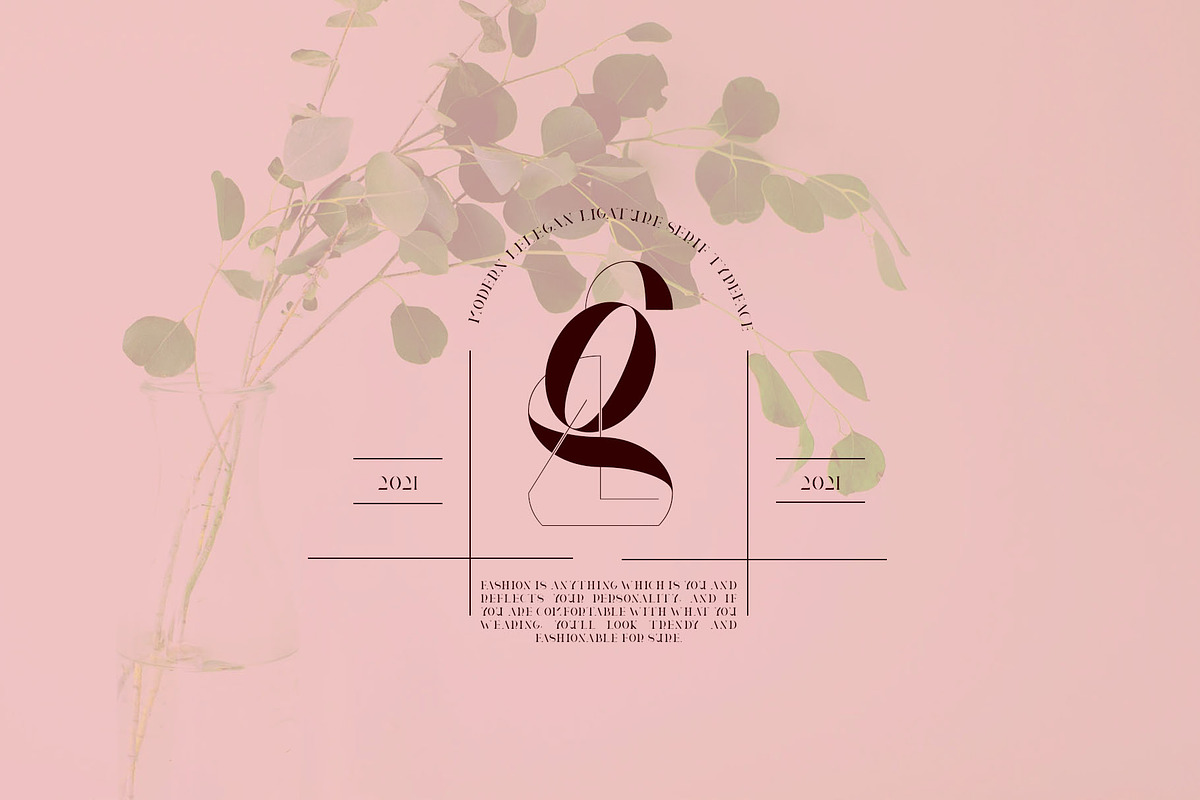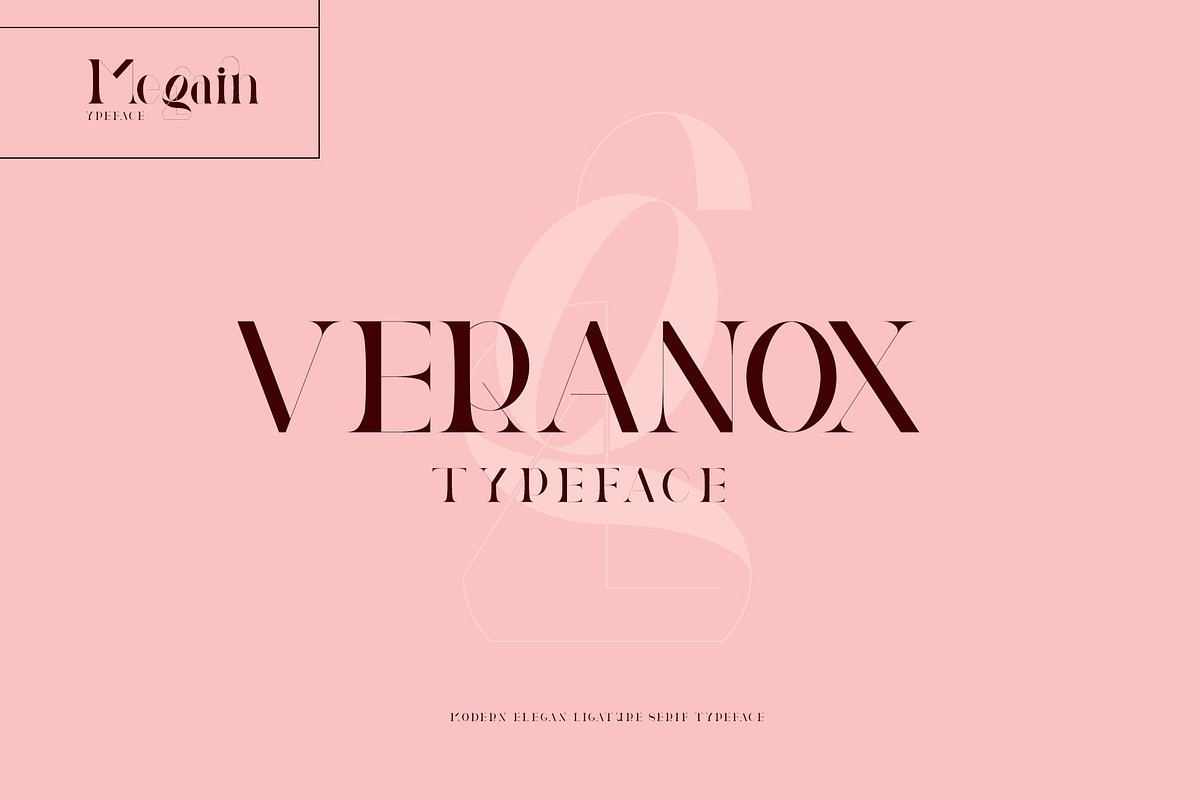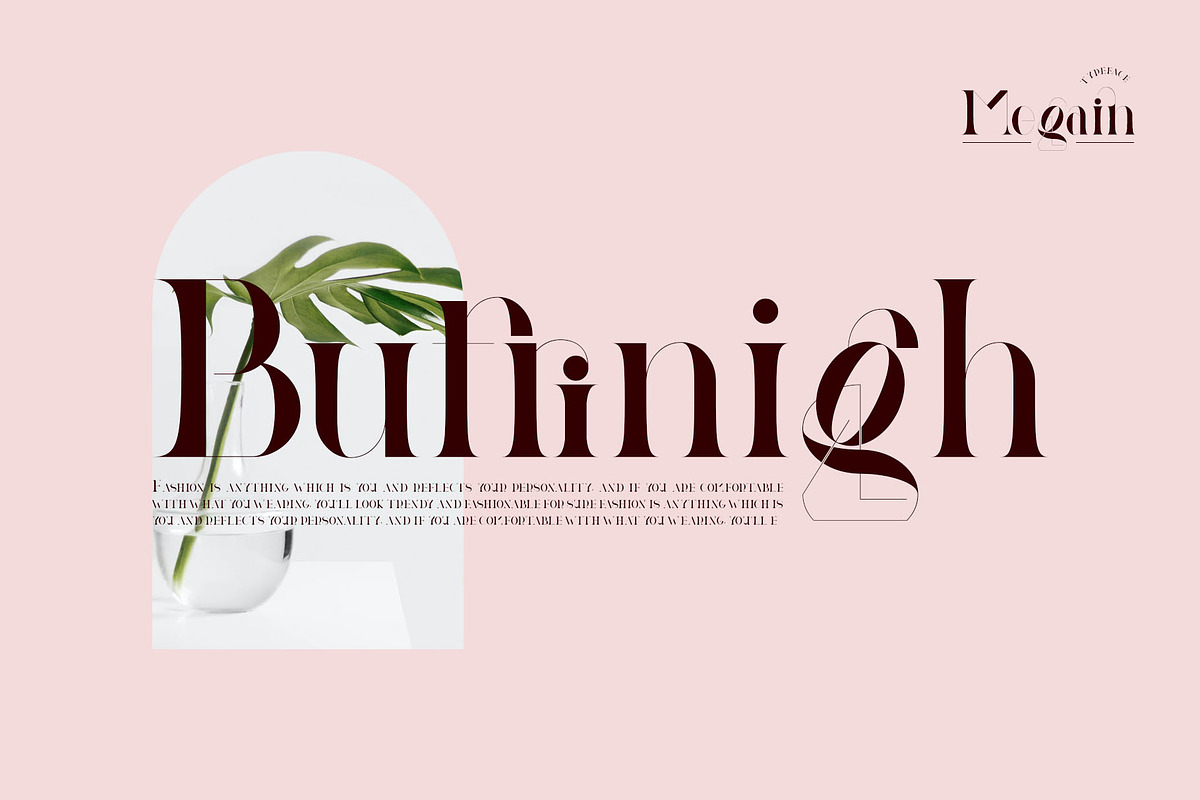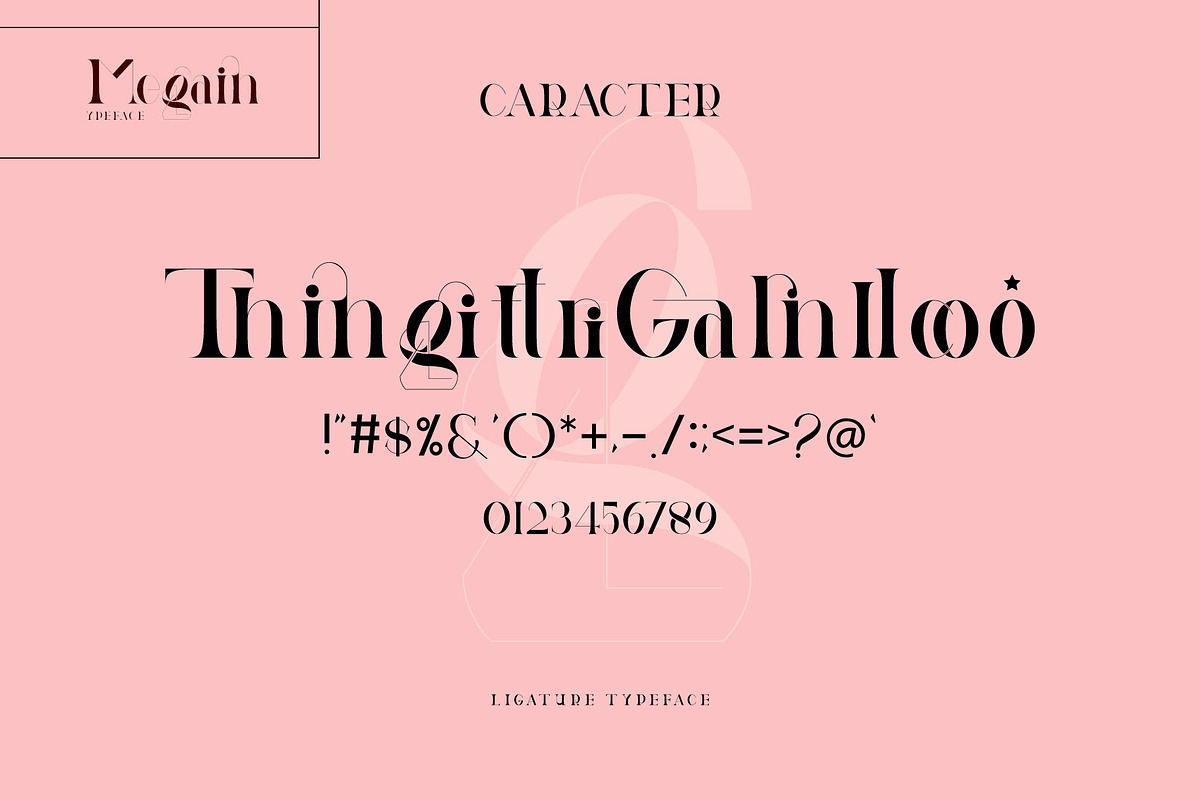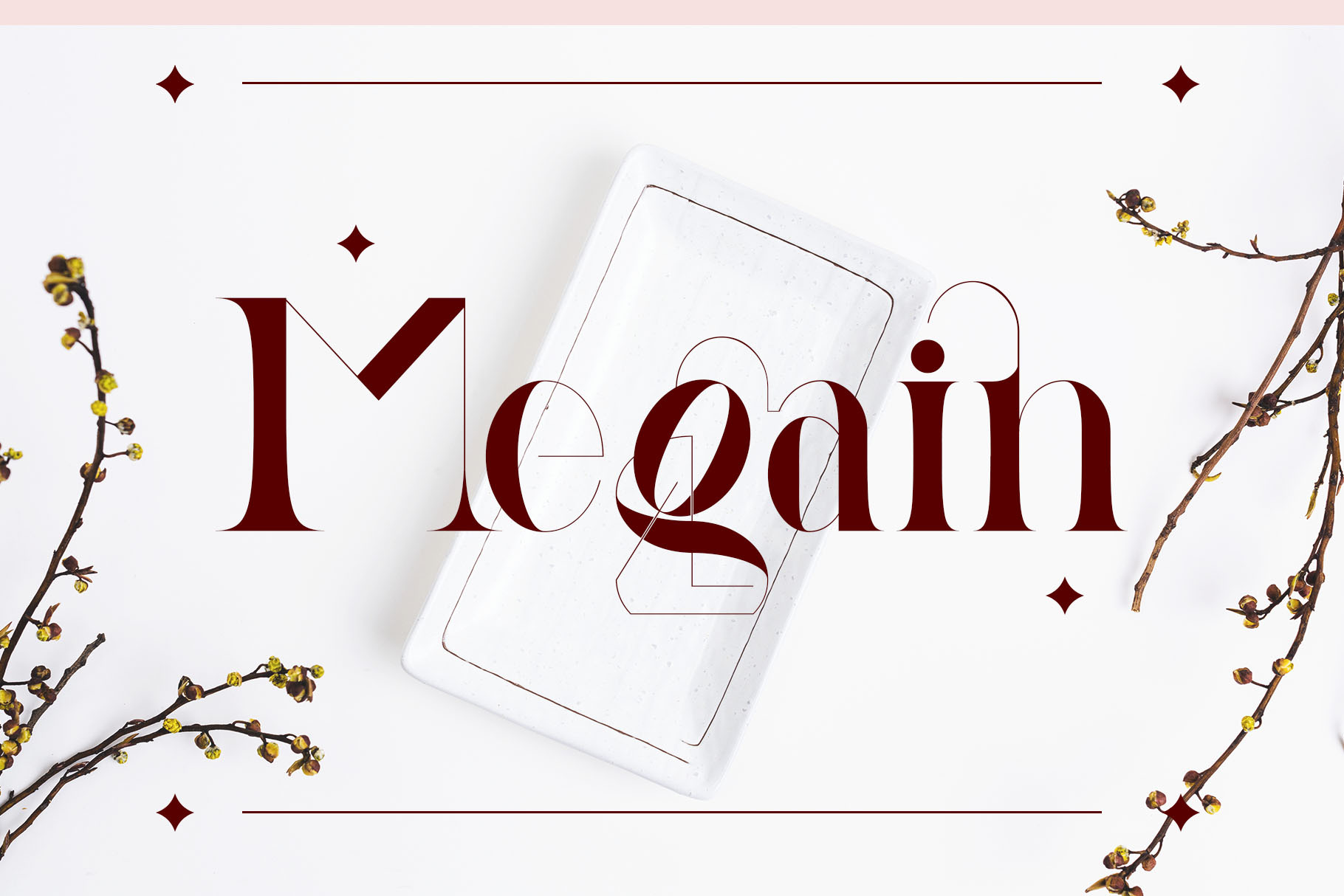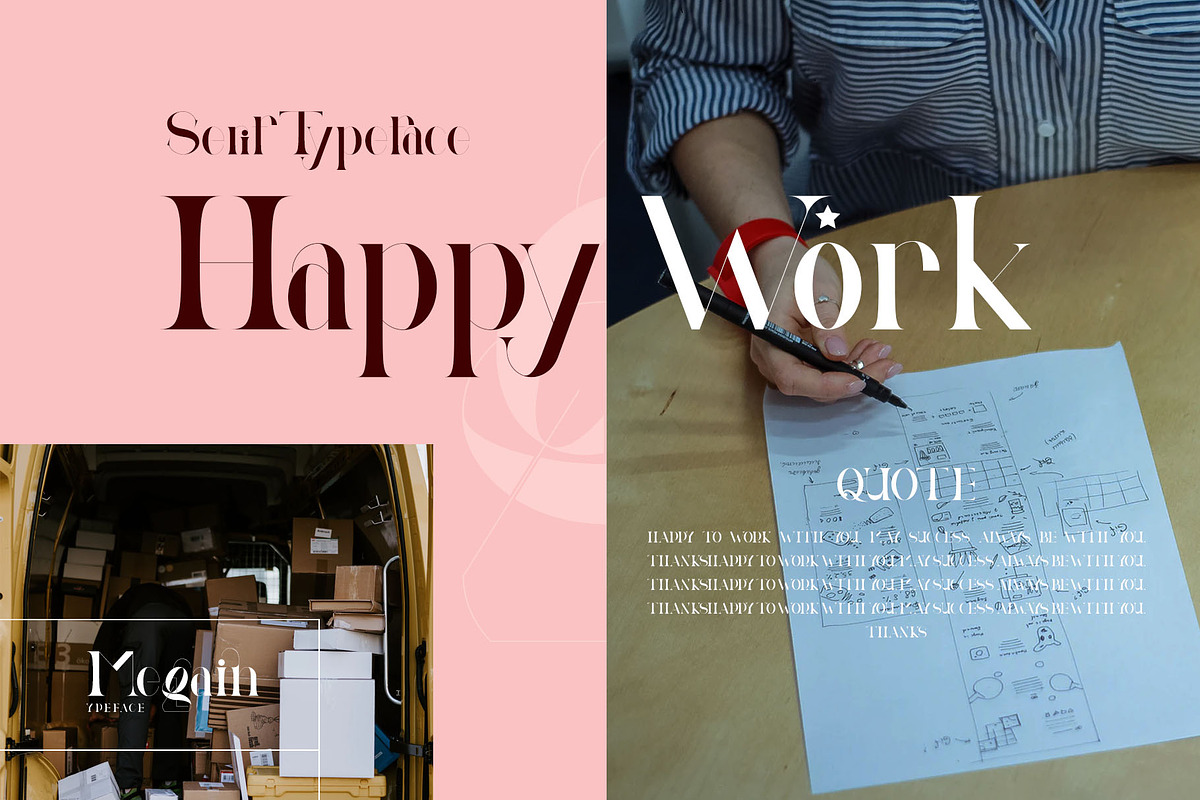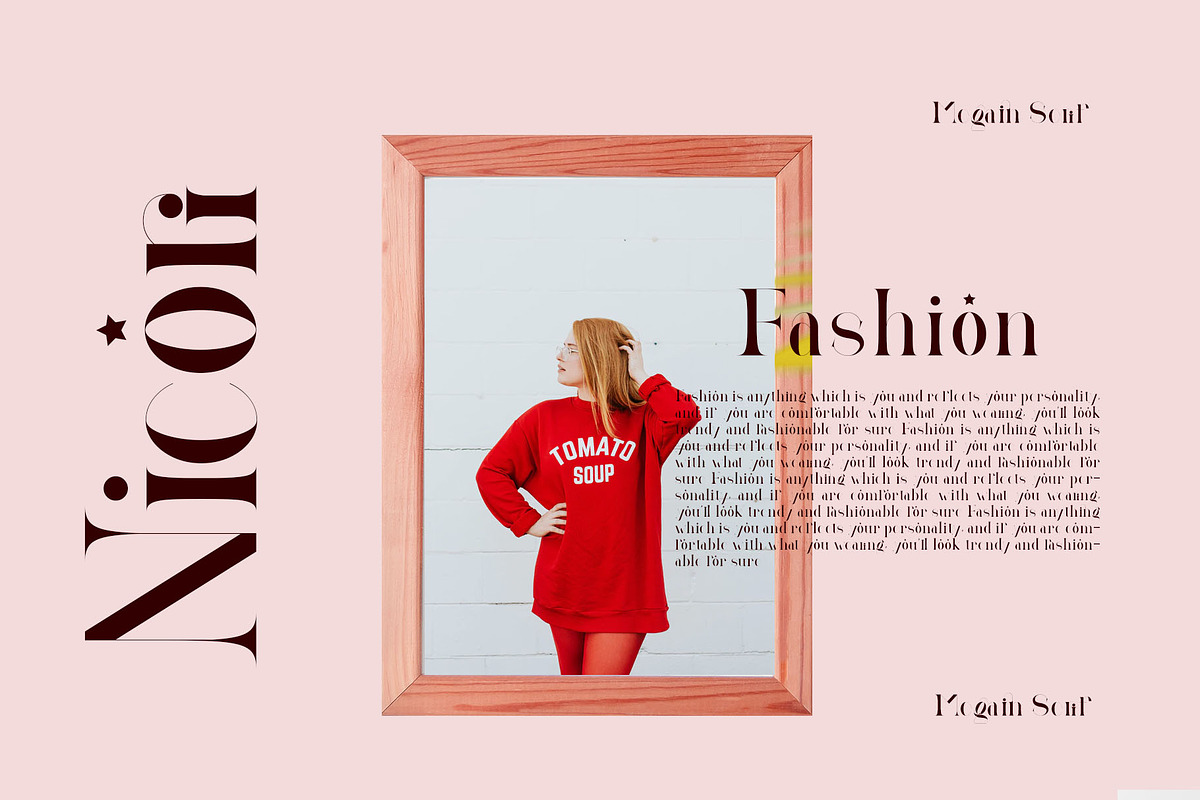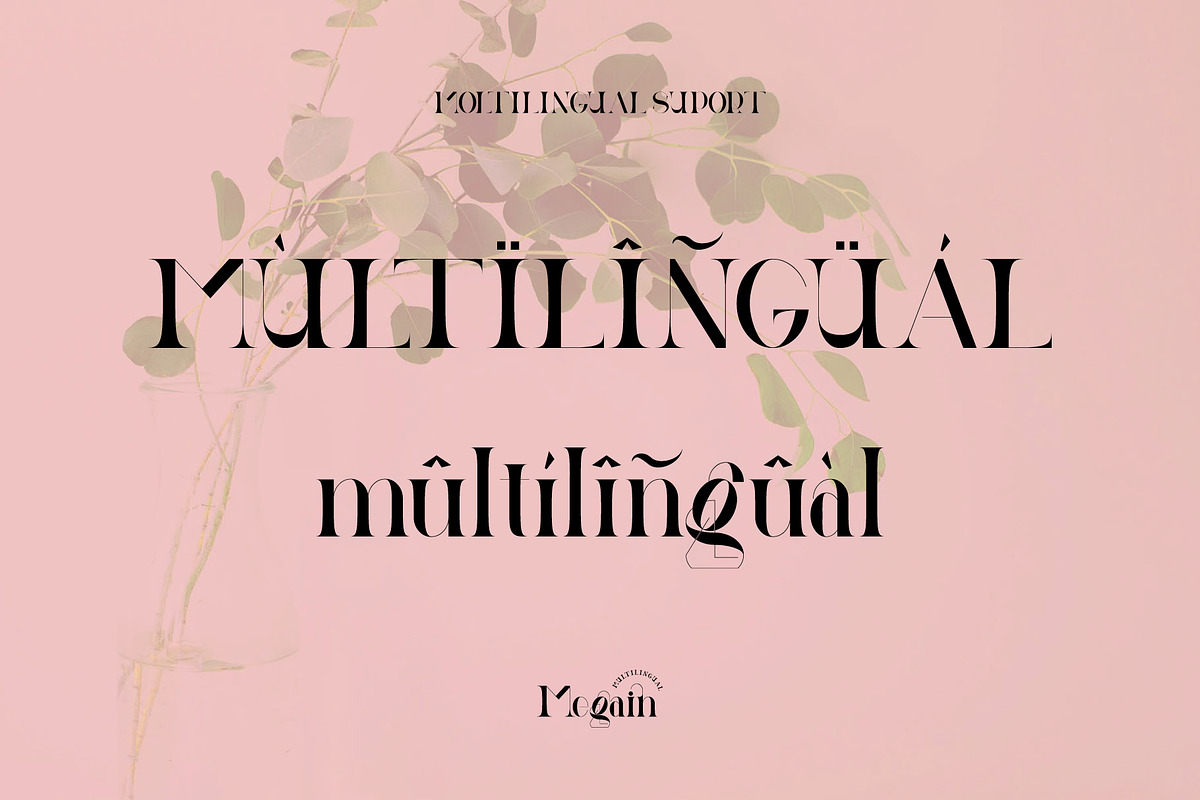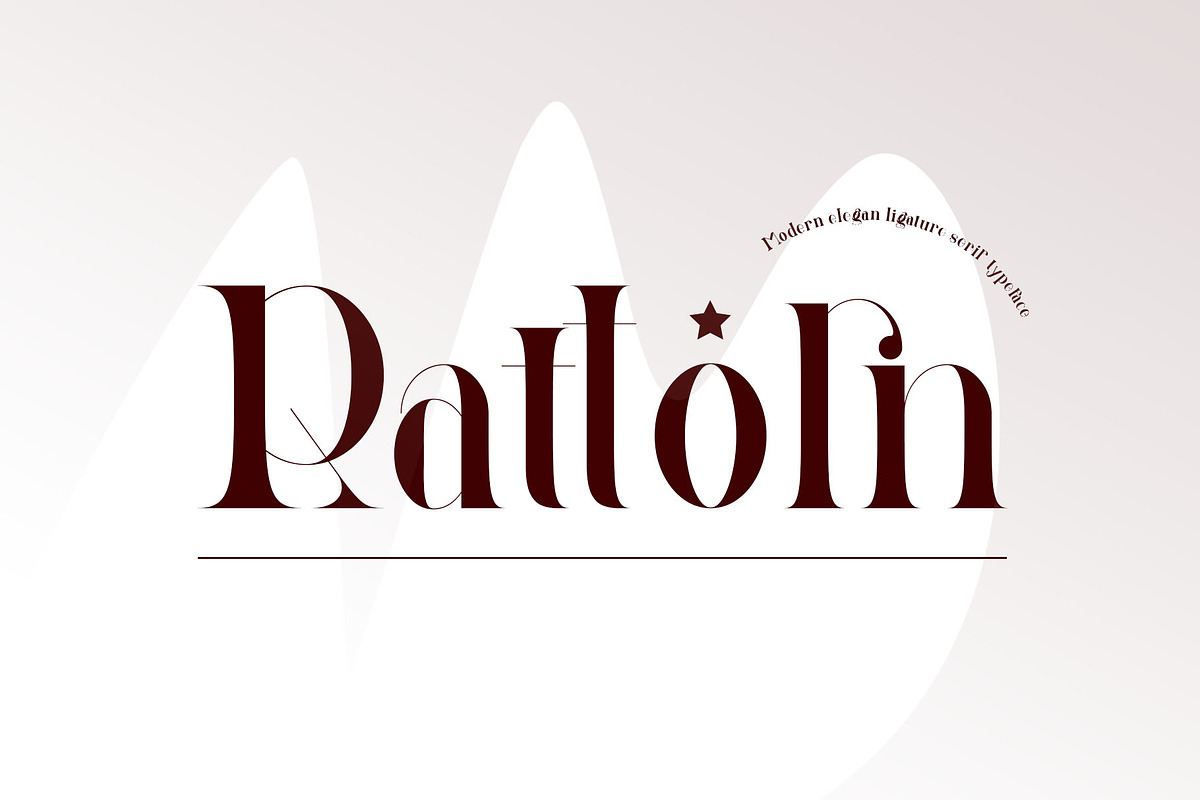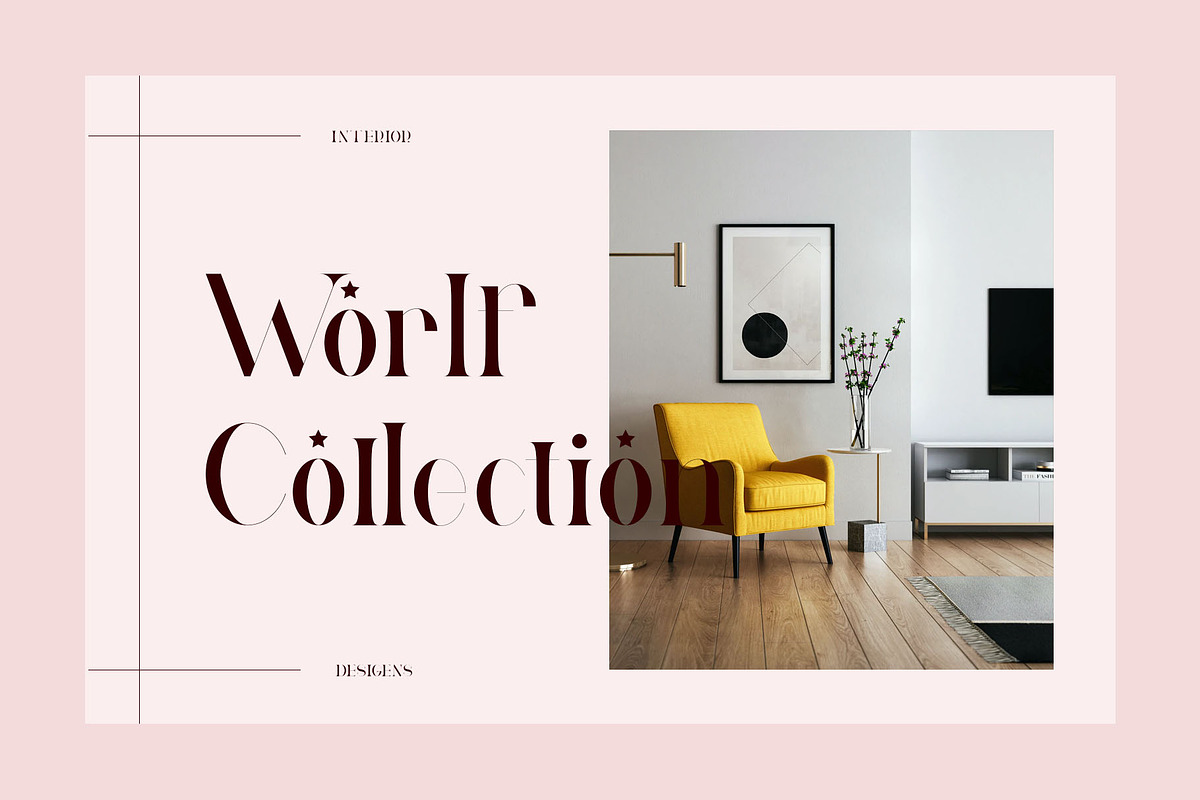
Megain Ligature Serif Typeface
Megain is a elegant and classy serif typeface – This font is both modern and nostalgic and works great for logos, magazine, social media. Already matched up and ready to be used together for your next design! For those of you who are needing a touch of elegant, stylish, classy, chic and modernity for your designs, this font was created for you!
Megain was built with OpenType features and includes ligatures, numbers, punctuation, and it also supports other languages.